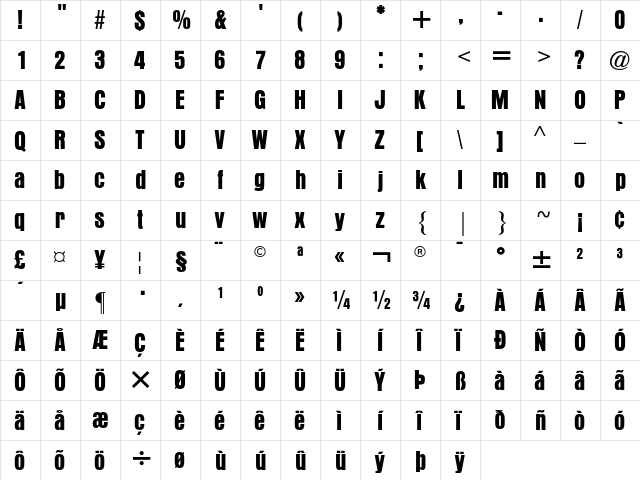
Aura AT Regular Font Preview
Aura AT Regular
Aura AT Regular Font Details
Design Context for Aura AT Typeface
Aura AT is a composed and adaptable typeface that performs quietly and consistently across a wide range of design contexts.